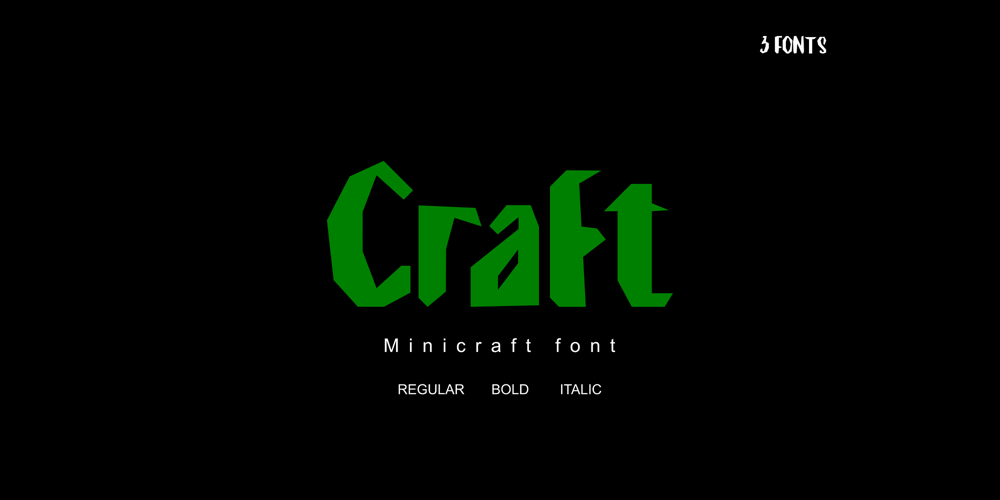
Craft
Craft font
Craft Font Family was designed by Rusdin Hendarsono and published by Alfareaniy. Craft contains 3 styles and family package options. Craft is a unique and cool kids font model. The horror and sharp shape makes your design very stunning